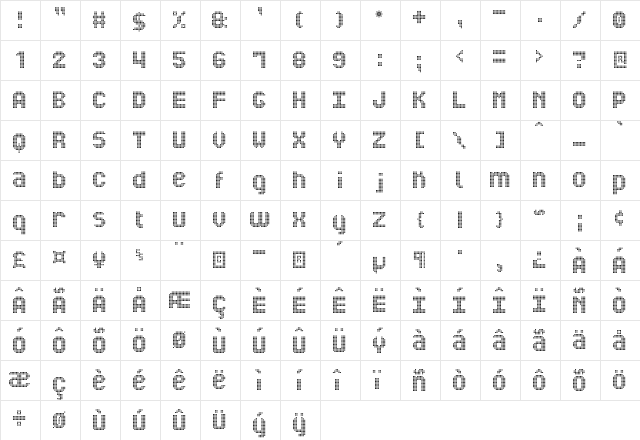
Mi Nuevo Display St Regular
Design Context for Mi Nuevo Display St Typeface
Mi Nuevo Display St is built around its visual character rather than neutral utility — its distinctive forms are designed to make an impression at display sizes.
Font Pairing: Pair with a clean neutral sans-serif for body copy to let Mi Nuevo Display St's character lead without overwhelming the composition.
Pro Tip: Use Mi Nuevo Display St exclusively at display sizes — it was designed to be seen, not read at length. Let a neutral companion handle body copy.